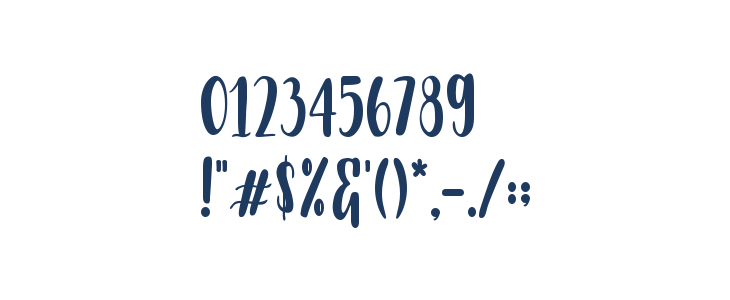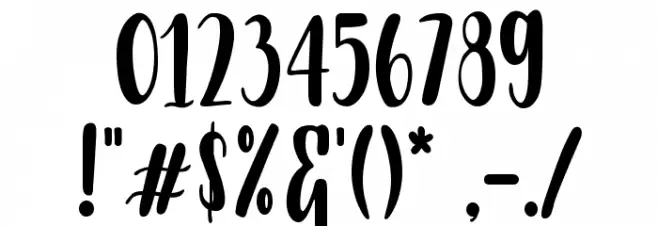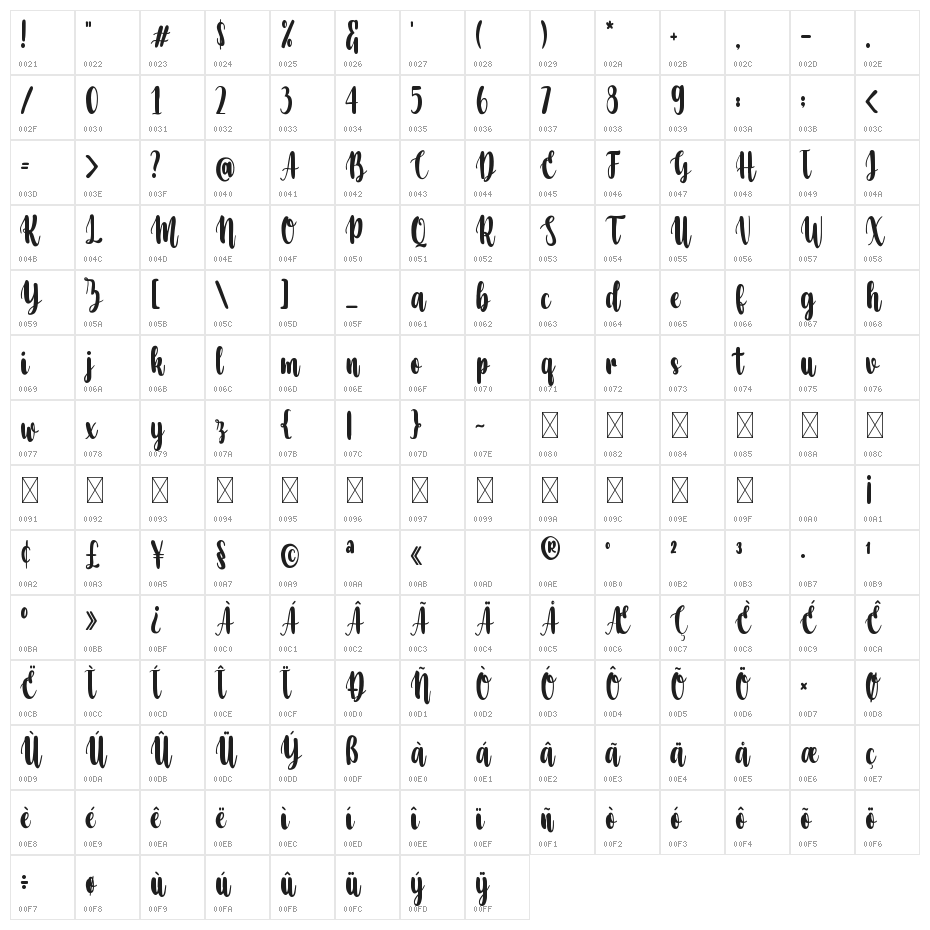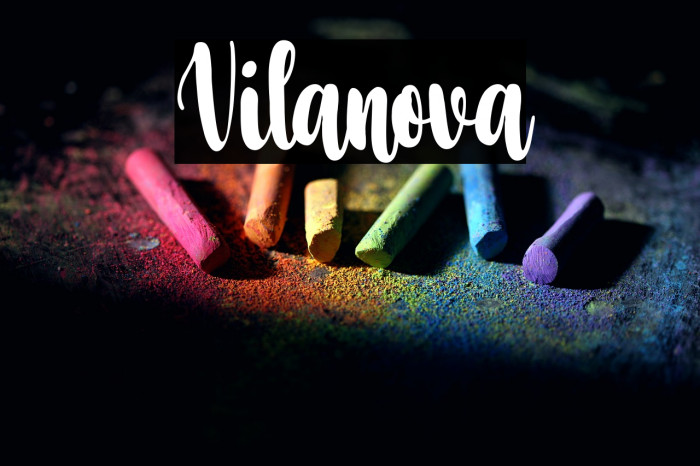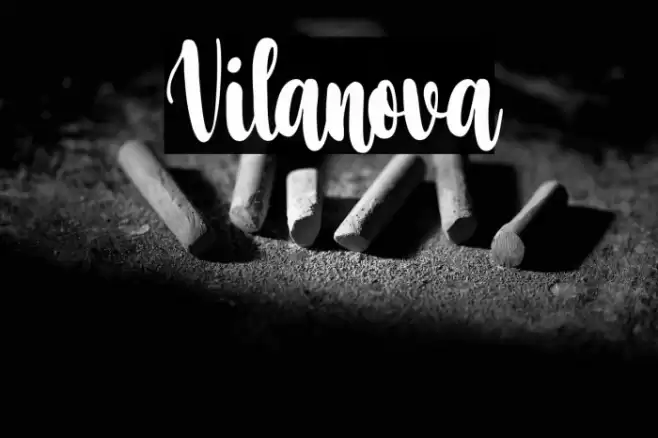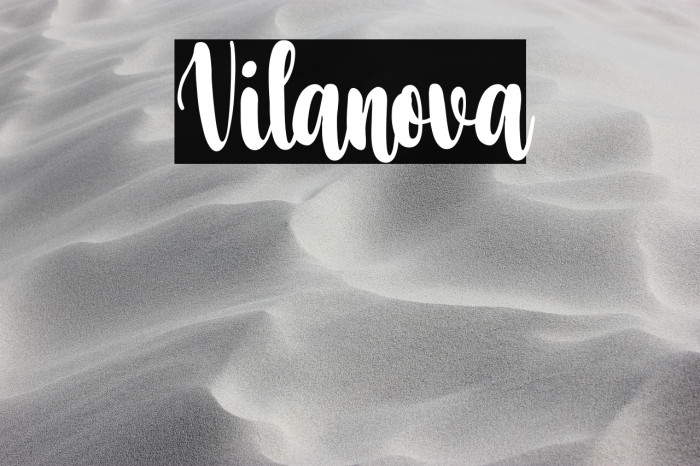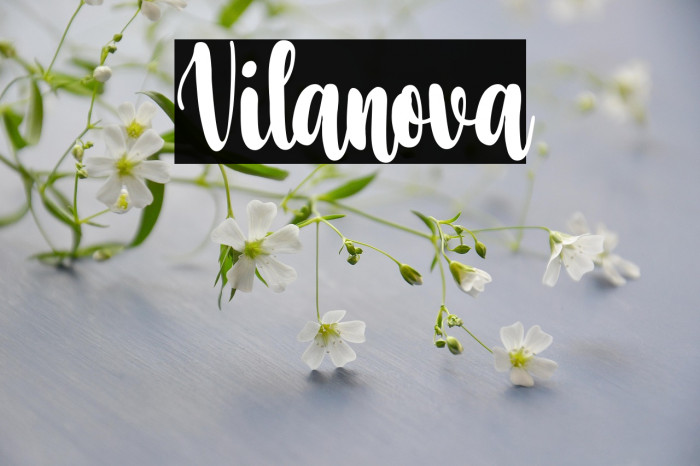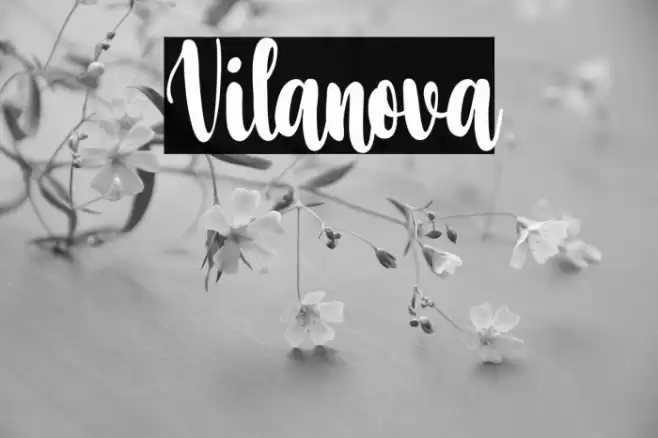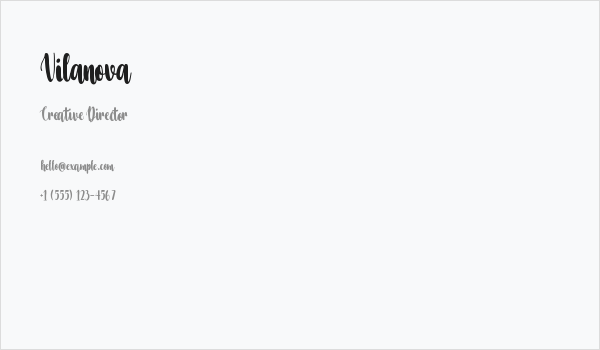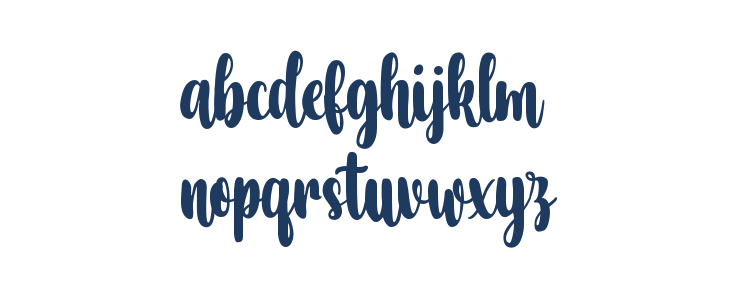
Vilanova Font
Vilanova Description
This font features a bold and expressive script style, characterized by its flowing, cursive letterforms. The uppercase letters are particularly ornate, with sweeping curves and loops that give a sense of movement and elegance. The lowercase letters maintain a consistent style, with rounded edges and a playful, handwritten appearance. The numerals are bold and clear, matching the overall aesthetic of the font. Special characters are included, maintaining the same decorative flair. This font is ideal for projects that require a personal touch, such as invitations, greeting cards, or branding that aims to convey warmth and creativity.
| Proposed Projects | Ideal for invitations, greeting cards, branding, and creative projects. |